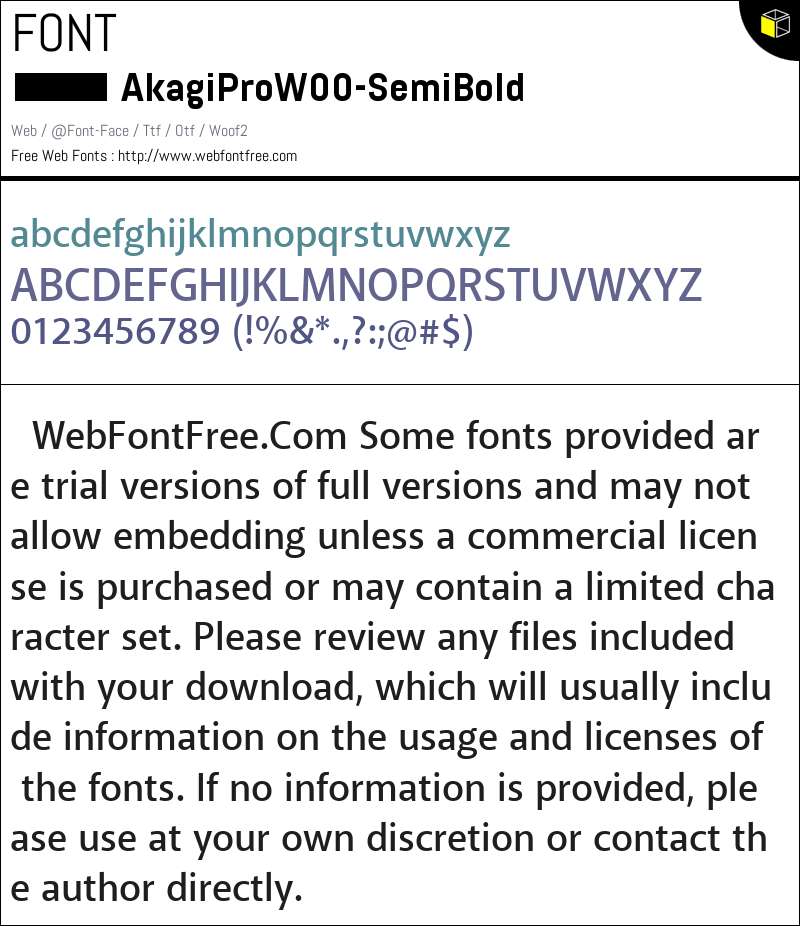
Akagi Black Free Font . Web akagi pro font family was designed by neil summerour and published by positype. Akagi pro contains 22 styles and family package options.
Akagi pro contains 22 styles and family package options. Web akagi pro font family was designed by neil summerour and published by positype. Akagi pro w00 black font is a basic, sans serif type font that can be used on any device.
Akagi Black Free Font - Web akagi pro w00 black font download is available free from 8font.com. Using a catalog of over 990k+ fonts (commercial or free) and our font finder ai,. Web explore akagi designed by neil summerour at adobe fonts. A sans serif typeface with 18 styles, available from adobe fonts for sync. Web or using @import css directive, put the following line.
Akagi Black Free Font - Web or using @import css directive, put the following line in add to your css file. Web our website helps you find any font from any image. Web akagi pro font family was designed by neil summerour and published by positype. Web thousands of designers (famous or not) use the image font detection system to find a font or similar.
Akagi Black Free Font - Web or using @import css directive, put the following line in add to your css file. Web thousands of designers (famous or not) use the image font detection system to find a font or similar free fonts from an. Akagi pro contains 22 styles and family package options. A sans serif typeface with 18 styles, available from adobe fonts for.
Akagi Black Free Font - Web thousands of designers (famous or not) use the image font detection system to find a font or similar free fonts from an. Akagi pro contains 22 styles and family package options. Web akagi pro font family was designed by neil summerour and published by positype. Web akagi pro w00 black font download is available free from 8font.com. Web or.
Akagi Black Free Font - Akagi pro contains 22 styles and family package options. Web or using @import css directive, put the following line in add to your css file. Web explore akagi designed by neil summerour at adobe fonts. Web our website helps you find any font from any image. Web akagi pro w00 black font download is available free from 8font.com.
Akagi Black Free Font - Akagi pro w00 black font is a basic, sans serif type font that can be used on any device. Web akagi pro font family was designed by neil summerour and published by positype. Akagi pro contains 22 styles and family package options. Web akagi pro w00 black font download is available free from 8font.com. Web or using @import css directive,.
Akagi Black Free Font - Web akagi pro font family was designed by neil summerour and published by positype. Web our website helps you find any font from any image. Using a catalog of over 990k+ fonts (commercial or free) and our font finder ai,. Akagi pro w00 black font is a basic, sans serif type font that can be used on any device. Web.
Akagi Black Free Font - Web akagi pro font family was designed by neil summerour and published by positype. Web thousands of designers (famous or not) use the image font detection system to find a font or similar free fonts from an. Akagi pro contains 22 styles and family package options. Web thousands of designers (famous or not) use the image font detection system to.
Akagi Black Free Font - Web thousands of designers (famous or not) use the image font detection system to find a font or similar free fonts from an. Web akagi pro font family was designed by neil summerour and published by positype. Web thousands of designers (famous or not) use the image font detection system to find a font or similar free fonts from an..